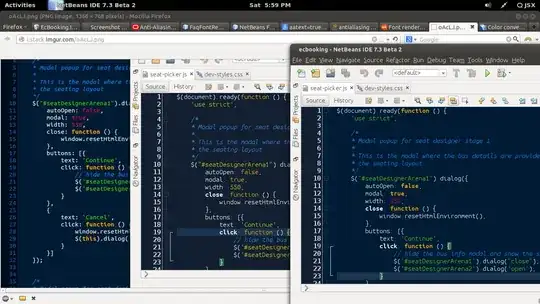
See the attached image. The window in the background is gedit with the fonts rendered smooth. The window on top is NetBeans with not-so-smooth font rendering (not anti-aliased, I think). Both editors use Ubuintu Mono font. Can anyone help me to make NetBeans render the fonts better?
You should be able to improve the font rendering, but it will never be like the one in Gedit. Usually all java applications using Swing have that weird rendering. If you use Eclipse, for example, the font rendering should be correct.
Font rendering can be changed in /etc/netbeans.conf:
and at the end of netbeans_default_options (between the quotation marks) add this:
-J-Dswing.aatext=true -J-Dawt.useSystemAAFontSettings=<OPTION>
where option can be "on", "gasp" or "lcd". You can get the full list here.
Try all those and see which one gives you best look. Hope it helps.
Fixed.
TL;DR: just add -J-Dawt.useSystemAAFontSettings=on -J-Dswing.aatext=true to netbeans_default_options in the netbeans.conf file.
See the result screenshot below. The Netbeans window on the extreme right is the onc after the above options are applied. Still not as good as gedit, but better than before.